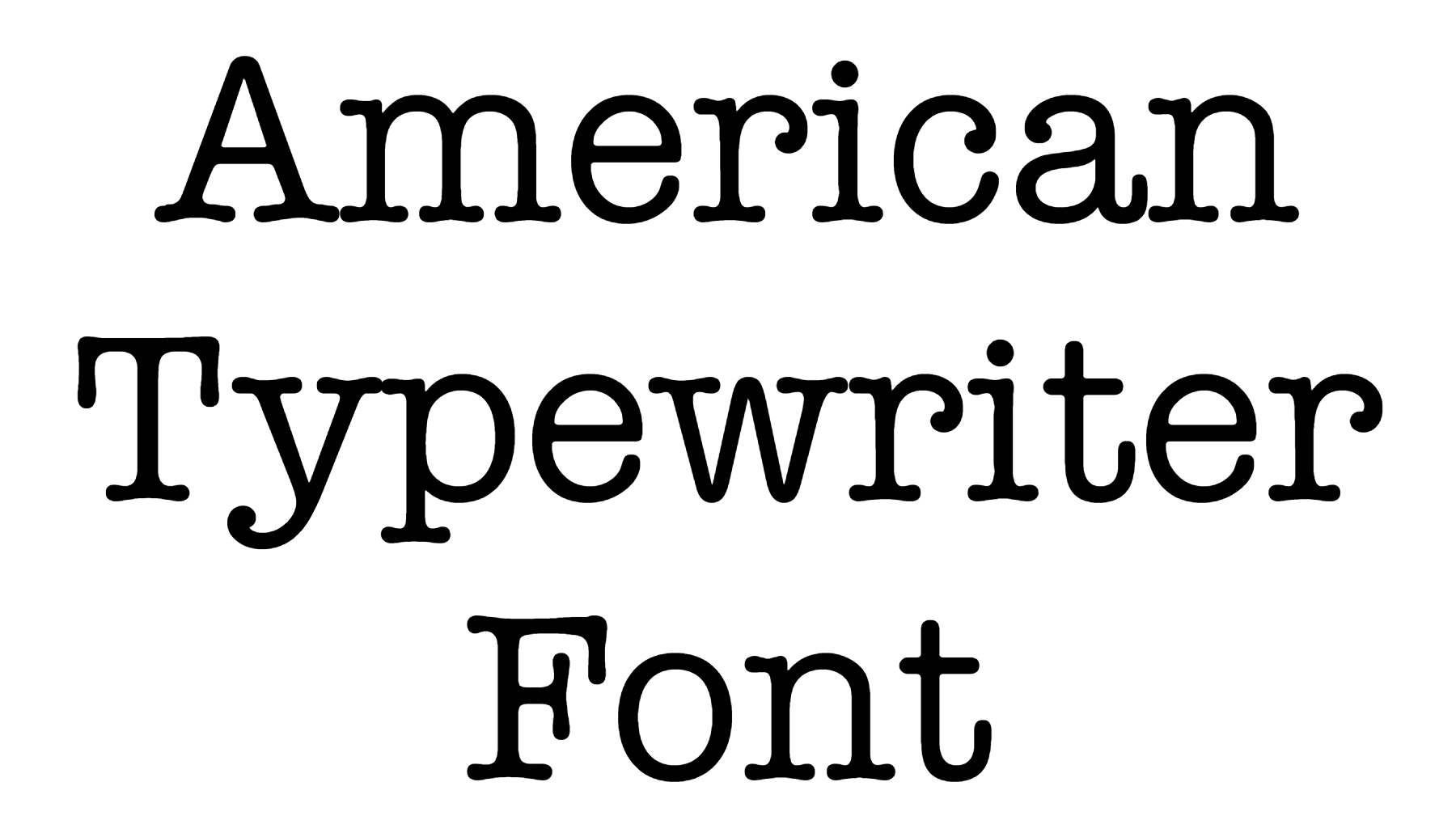
American Typewriter Font
Joel Kaden and Tony Stan designed American Typewriter (often cataloged as ITC American Typewriter) in 1974 for the International Typeface Corporation (ITC). They created this classic slab serif typeface to mark the 100th anniversary of the typewriter, reimagining the nostalgic, rigid mechanics of old writing machines into a warm, friendly text face.
American Typewriter